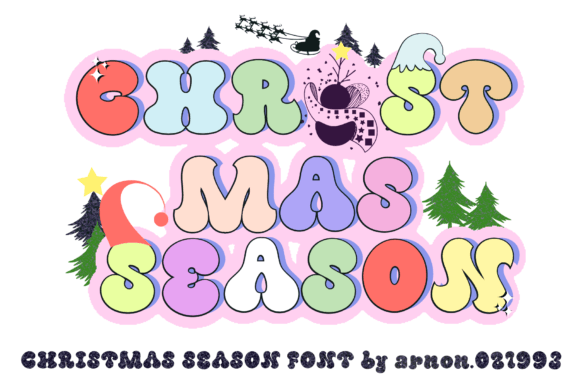
In the realm of digital artistry, fonts hold an enchanting power, shaping words into vibrant expressions of ideas and emotions. Among this captivating ensemble, the Christmas Season Font emerges as a radiant star, an exquisite display typeface that ignites imagination and transforms your creative visions into captivating realities.
Step into a whimsical world where letters dance with childlike charm, their playful curves and enchanting swashes evoking the joy and wonder of the festive season. This font is a masterpiece of creativity, a delightful blend of tradition and innovation that beautifully captures the essence of Christmas cheer.
With the Christmas Season Font as your artistic companion, you'll embark on a journey of boundless expression. Bring life to your designs, whether they be enchanting invitations, captivating social media posts, or eye-catching marketing materials. Its versatility transcends genres, making it an ideal choice for everything from cheerful holiday greetings to whimsical children's stories.
Immerse yourself in the font's captivating details, where each letter is meticulously crafted to exude warmth and cheer. Delicate ornaments playfully adorn the characters, adding a touch of magic to every word you type. The font's generous spacing and smooth flow create a visual symphony that invites readers to linger, absorbing the joyous spirit embedded in every stroke.
Unleash your creativity and let the Christmas Season Font guide you towards design excellence. Transform ordinary text into enchanting expressions of festive delight. Spread joy and goodwill with your captivating designs, leaving a trail of smiles wherever your creations wander.
The Christmas Season Font is more than just a typeface; it's an experience, a gateway to a world where imagination reigns supreme. Join the chorus of creative minds who have embraced its charm, and witness the transformative power of this remarkable font. Let your designs sparkle with the magic of Christmas, and share the joy with the world.